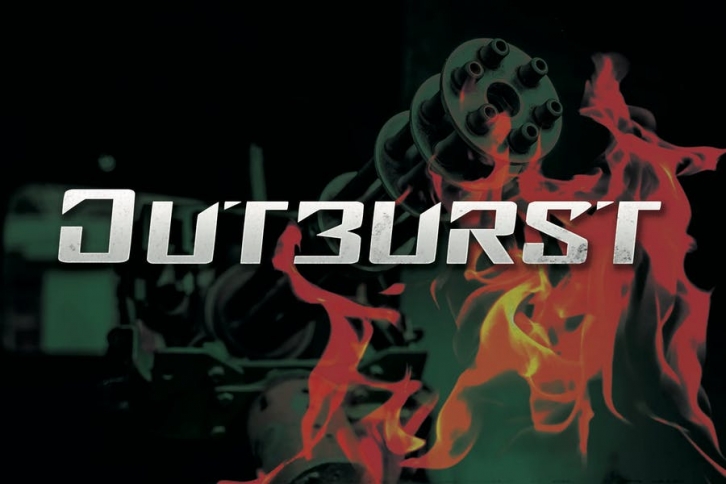
Introducing Outburst - Modern Bold Gaming Font
Introduce my new font called Outburst. Outburst is a Modern font inspired Game Online and Movies. This font is suitable for various purpose such as movies, posters, logos, webfont and any modern purposes.